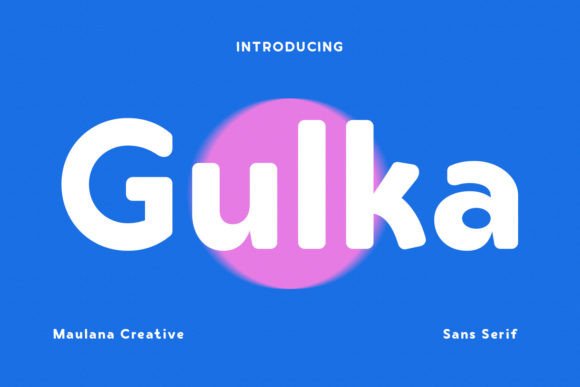
Introducing Gulka Font: The Cutting-Edge Sans Serif for Enthralling Digital Displays
Embark on a typographic journey with Gulka Font, the contemporary sans serif that exudes freshness and sophistication. Designed by Maulana Creative, a visionary in the realm of digital aesthetics, Gulka is not just a font; it's a gateway to limitless creative expression.
Gulka's meticulously crafted letterforms strike a perfect balance between trendiness and timeless elegance. Each stroke, each curve, and each counterform is carefully engineered to captivate and engage your audience. Whether you're crafting captivating headlines, captivating logos, or immersive digital experiences, Gulka rises to the occasion, delivering unparalleled visual impact that leaves a lasting impression.
With its wide spectrum of applications, Gulka is the ultimate font for the modern digital age. Its versatility shines in web design, where it effortlessly adapts to various screen sizes and resolutions. Unleash your creativity in social media posts, transforming your feeds into visually stunning masterpieces. Elevate your marketing materials, from brochures and flyers to billboards and posters, with Gulka's striking presence.
Step into the world of Gulka and let your imagination soar. Experience the thrill of creating captivating digital displays that captivate and inspire. With its remarkable clarity, readability, and adaptability, Gulka is the perfect companion for designers, marketers, and creative professionals who seek to leave an indelible mark on the digital landscape.